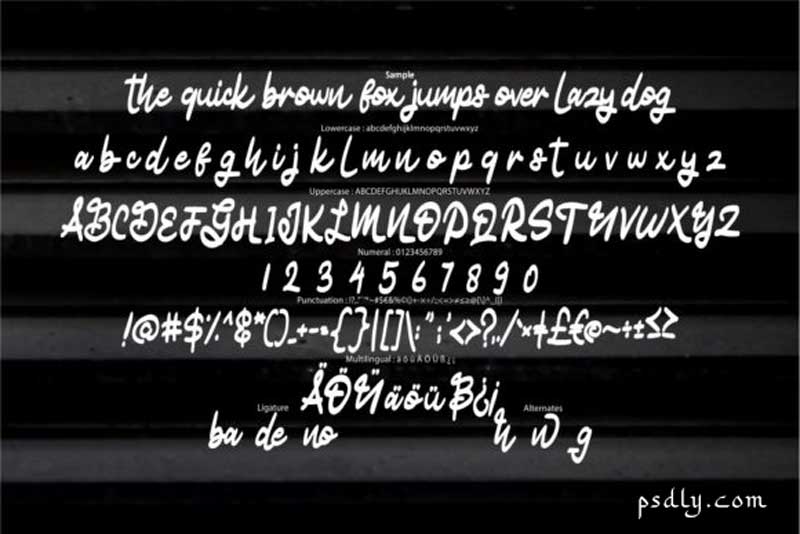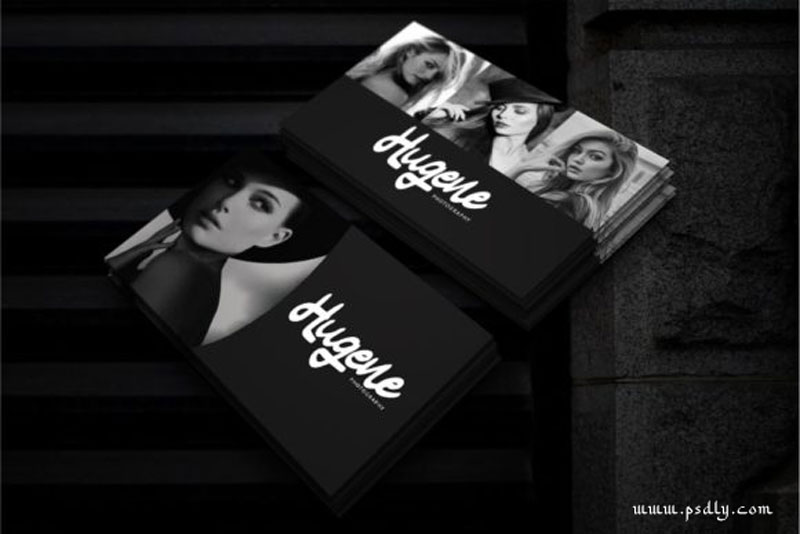
Matody Font
Matody is inspired by classic typography and brings its own unique style to any design project. This fantastic handwritten font is best suited for headlines of all sizes, as well as for blocks of text that have both maximum and minimum variations.
Whether it’s for web, print, moving images or anything else – Matody will look spectacular. Also checkout Justile + Extra Logos Template Font.
• Designer: Vunira